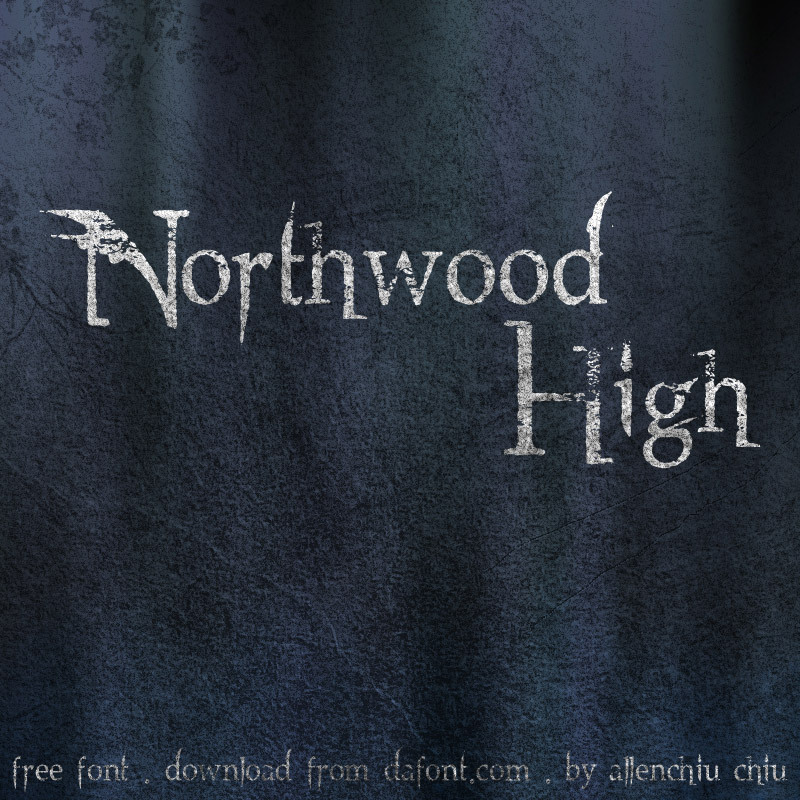
Northwood High is a free eroded serif display font with ragged, ink-worn strokes and an unsettled handmade outline. Its uneven edges and sharp, stretched details suggest lettering weathered onto old wood or scraped from a printed sign.
A poster is its most convincing setting, especially for folk music, outdoor events, or dark theatrical productions. The distressed surface can also shape rustic packaging and merchandise, where the lettering feels physically worked rather than digitally clean. That woodcut-like abrasion ties the font to forest imagery, worn labels, and rough illustrated textures.